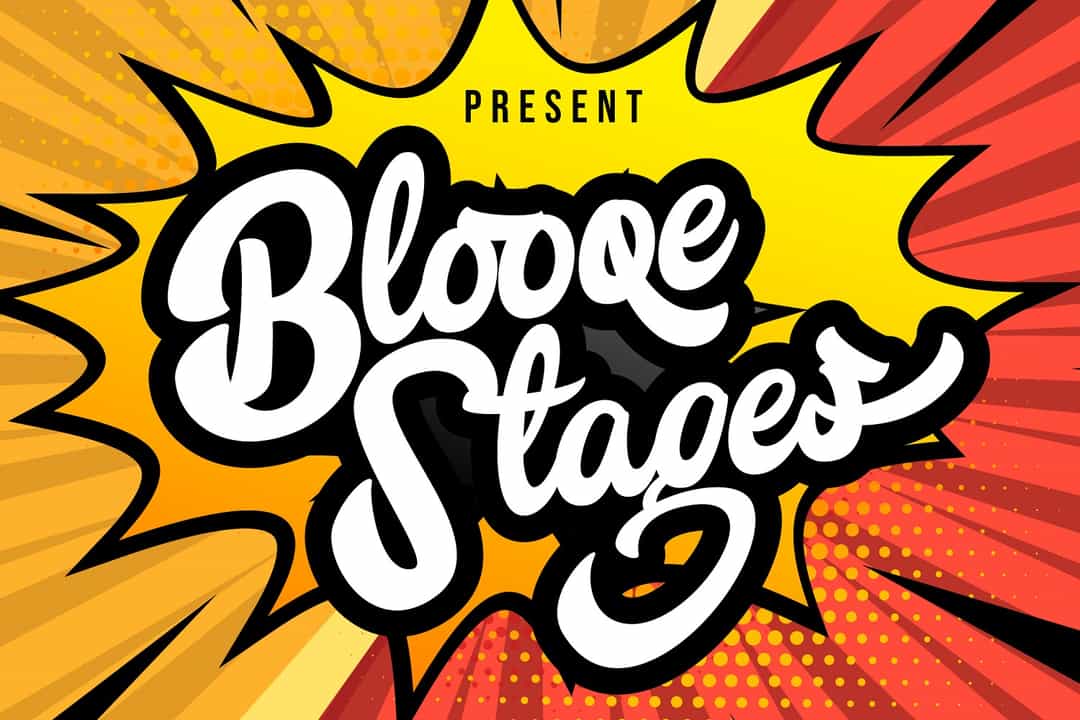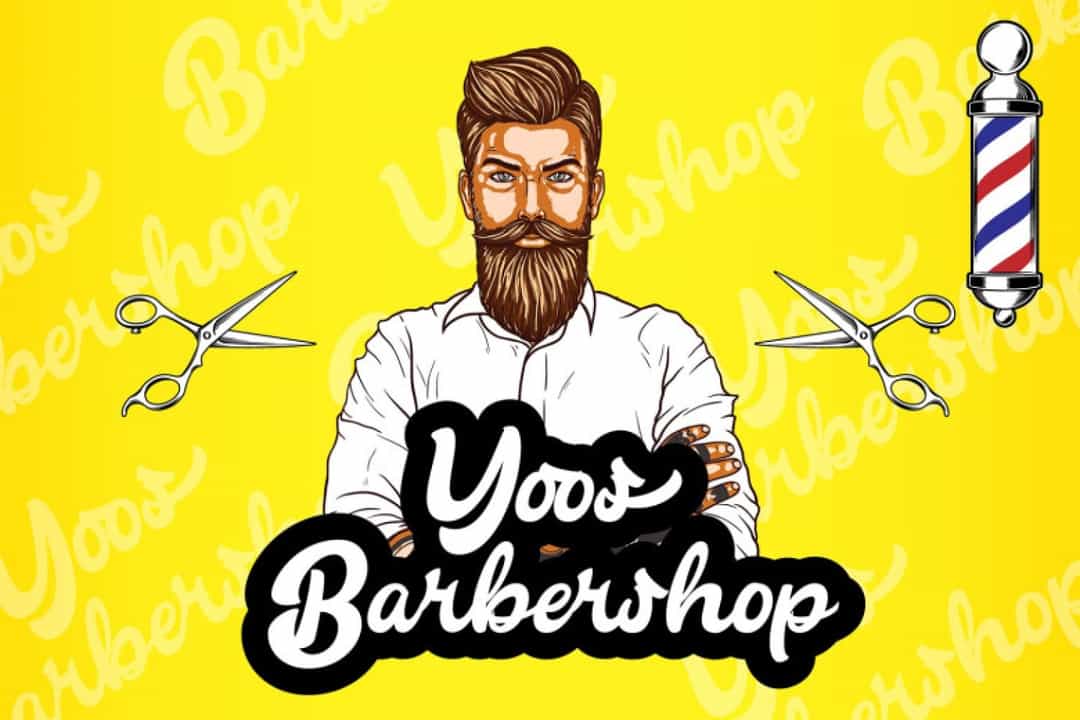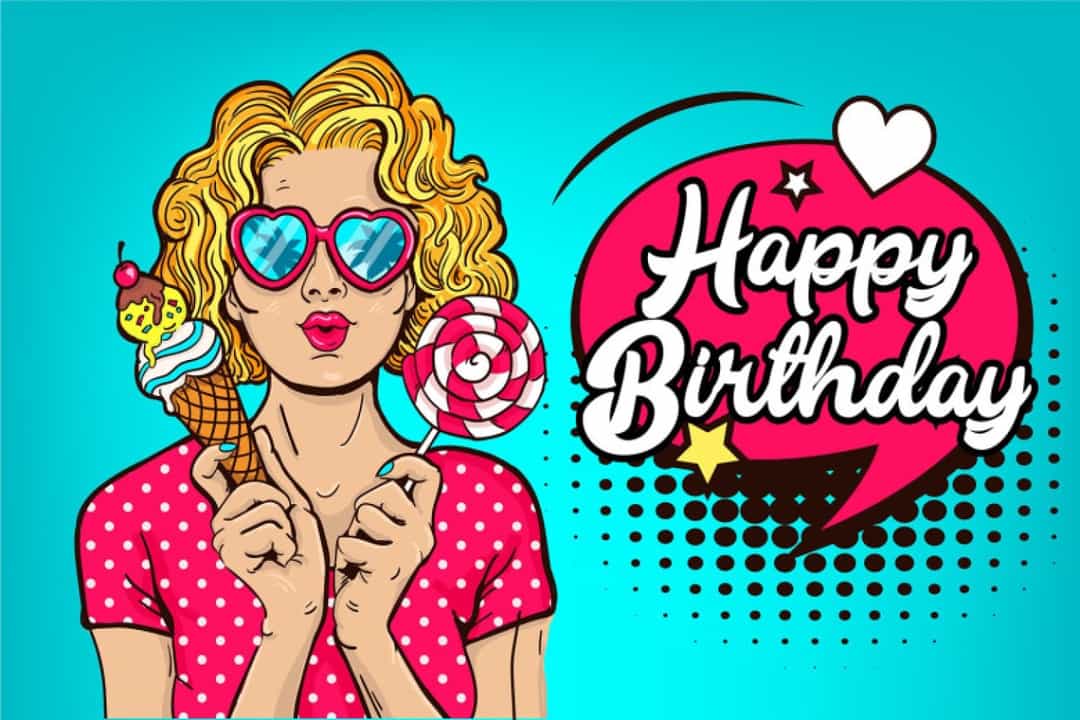
Blooqe Stages is a display font of the script type with the strong and elegant look that is designed in order to meet the demands of the contemporary graphic design. The following ideas are rather inspiring: looking at classic label designs, old-style packaging, or sign painting from the past.